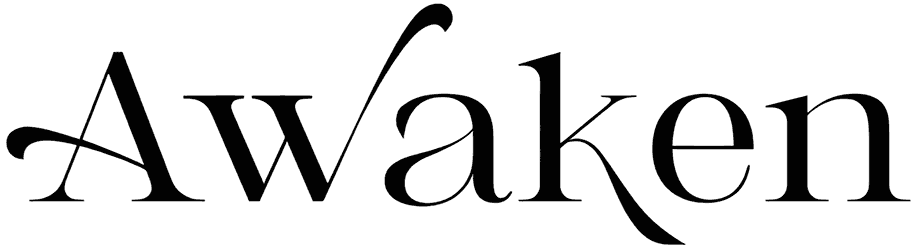
Awaken Font
Awaken font shows luxury and modernity very beautifully. This serif and elegant font can be effective in your next projects. They can be a suitable option for designing business cards, fashion brands, magazine covers, and even website headers.
Its characters have a combination of thin and thick lines, which adds to the uniqueness of this feminine font, and you can count on it for many rich projects.